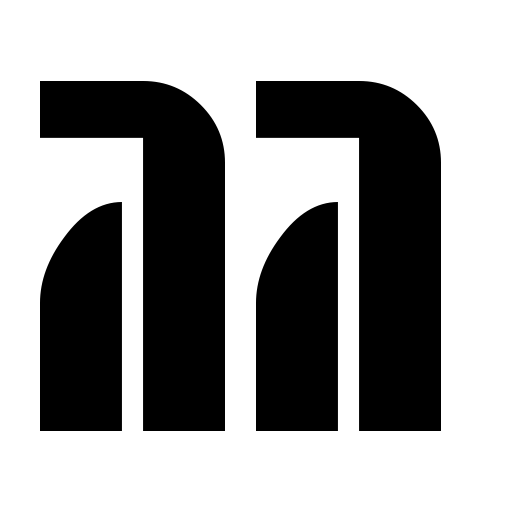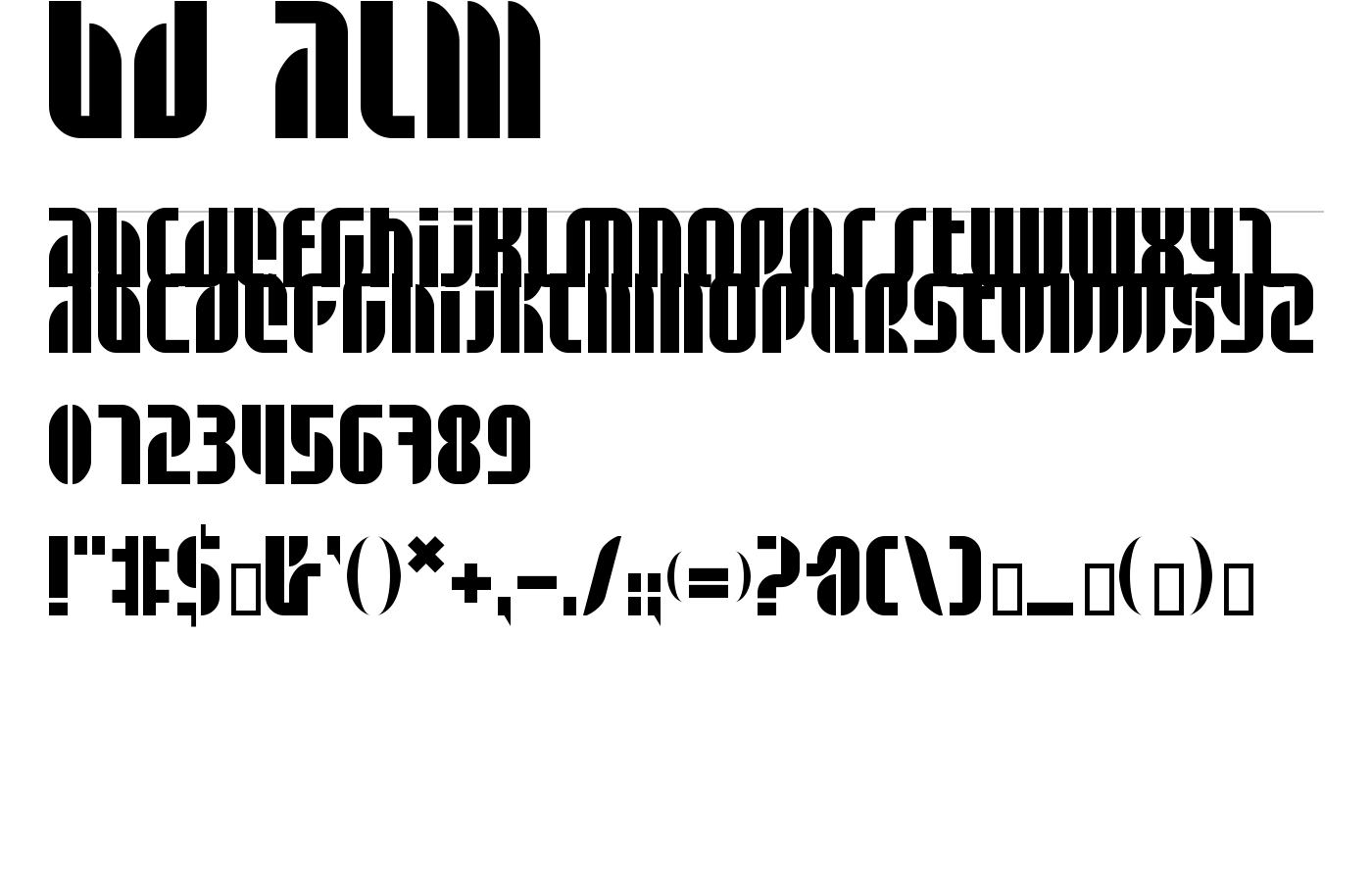
BD Alm is a bold, condensed sans serif font with a unique and modern geometric style. Its high stroke contrast and tight spacing create a striking, almost futuristic appearance, making it ideal for eye-catching headlines, logos, and display uses where a strong, contemporary vibe is desired. This font works best in designs seeking a distinctive, avant-garde look that stands out in fashion, tech, or creative branding.
BD Alm Font